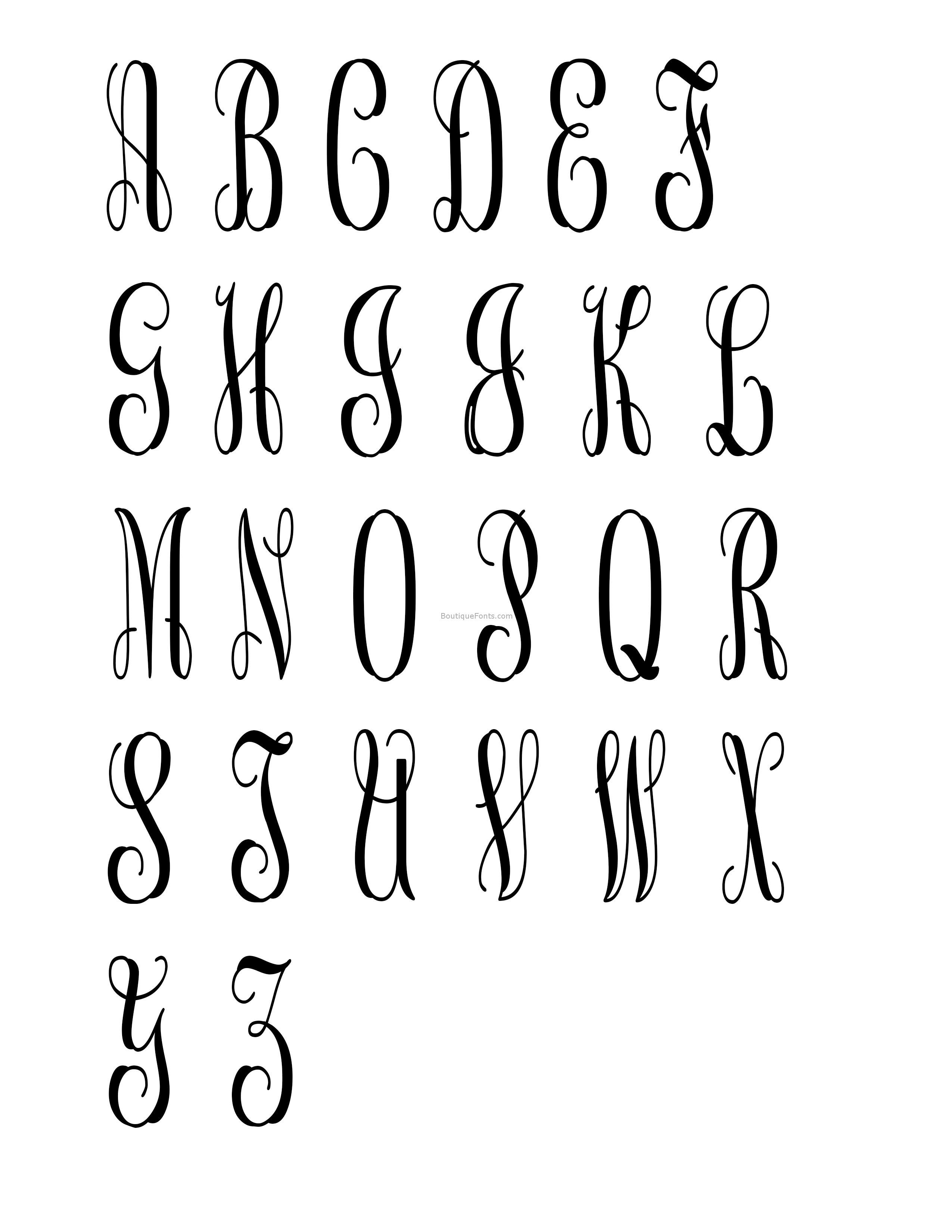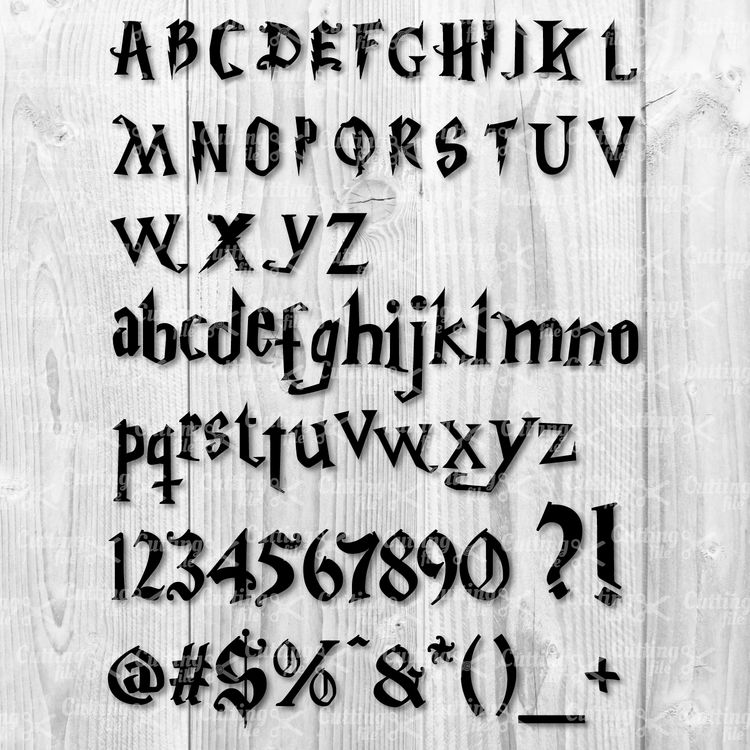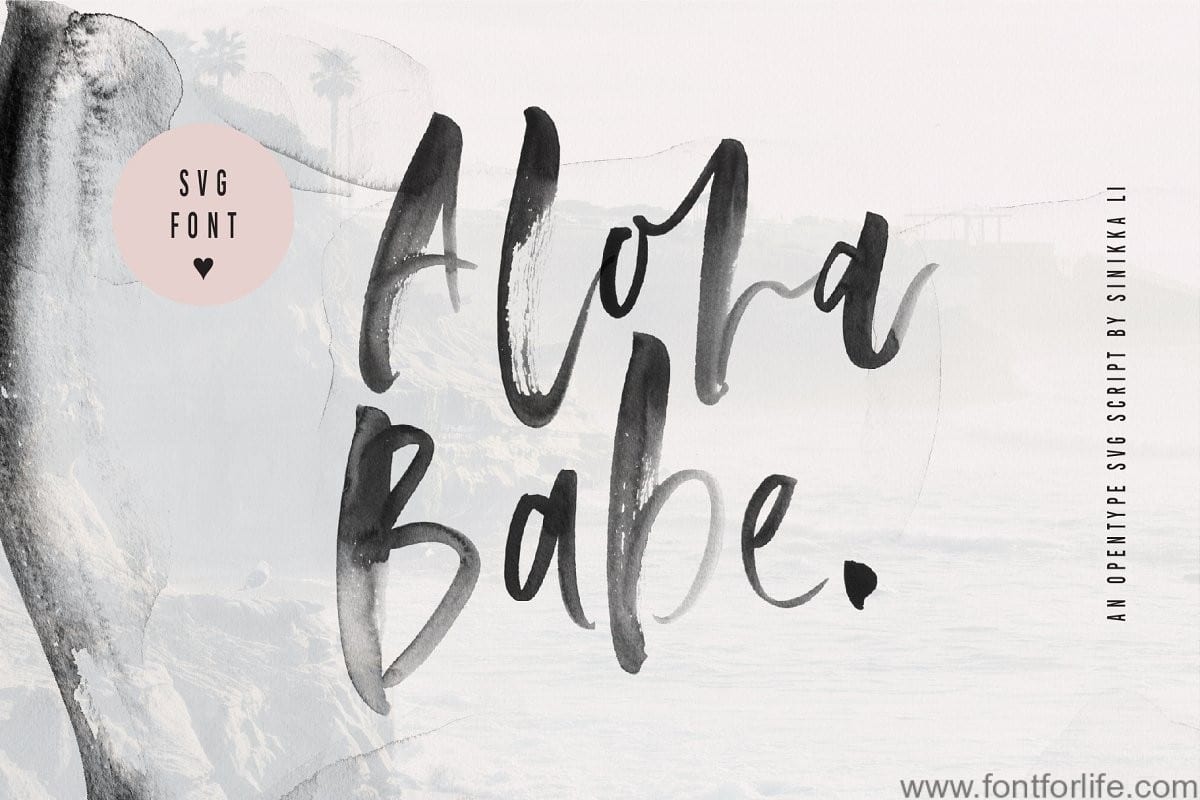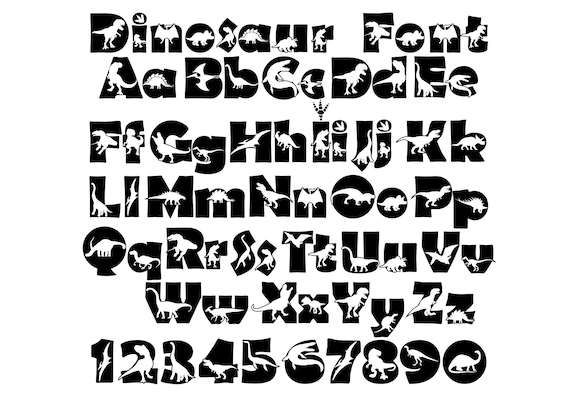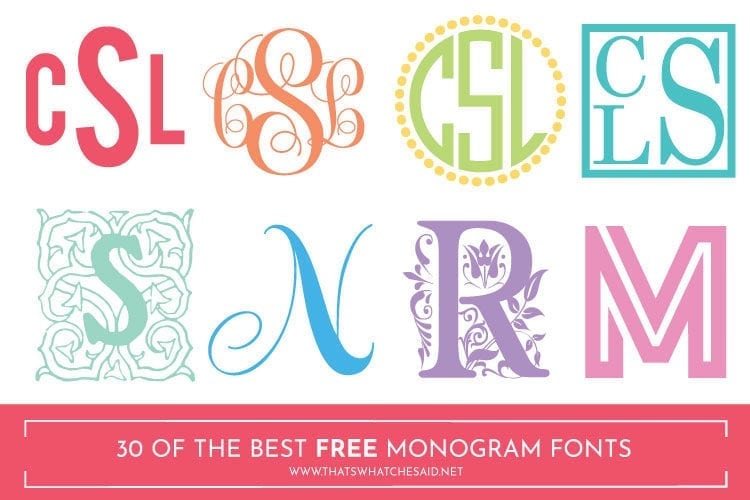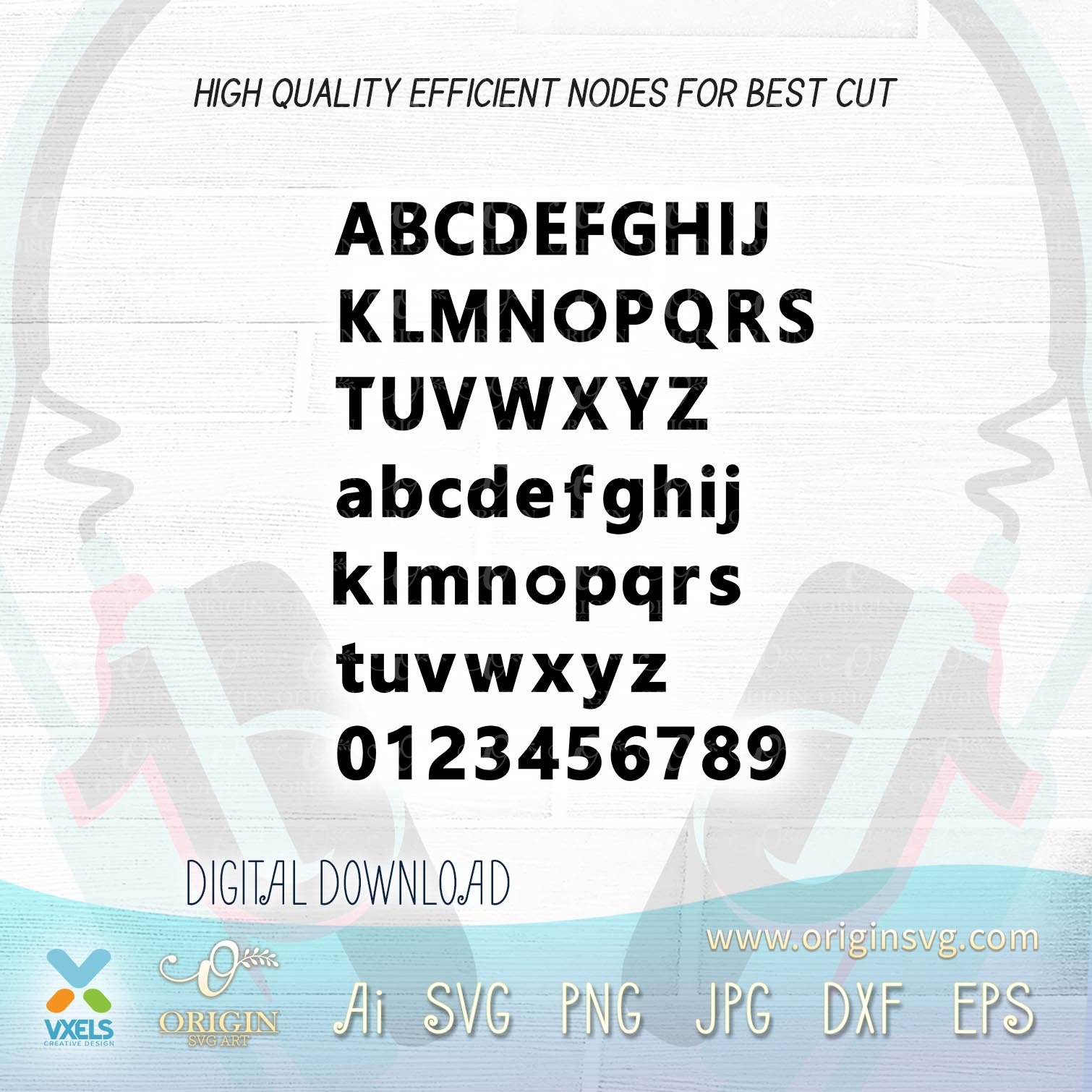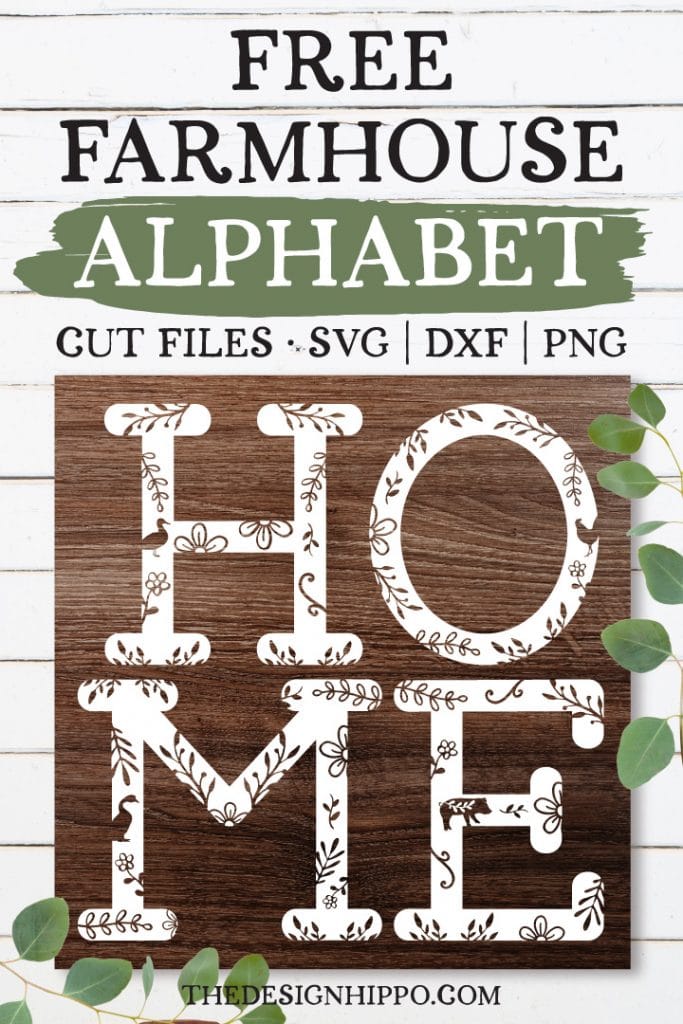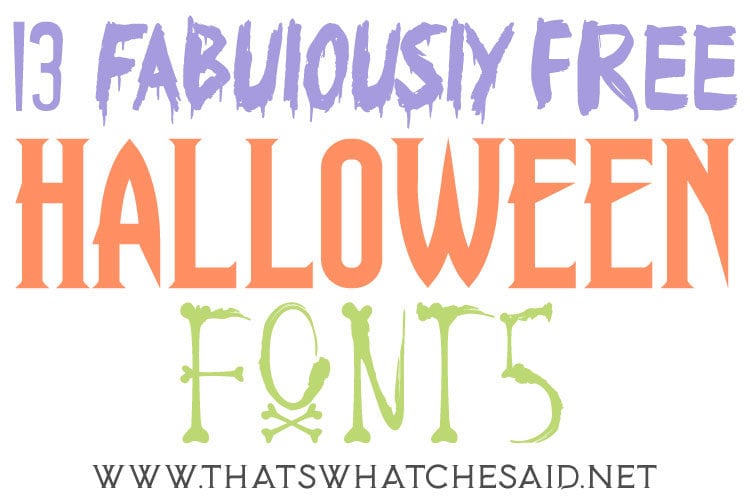
SVG fonts often make great use of color and this one is no exception. That is why finding free fonts for Cricut can be very difficult.
Best Free Fonts Script Elegant Free Svg Calligraphy Fonts
Svg alphabet fonts free. Even when you do find that perfect font you will need to know some basic steps to help your project idea become reality. If youre freaky for free fonts then Font Freak is the site for you. Wedding fonts Cursive font svg Cursive monogram svg Cursive fonts downloads Cursive font digital Word fonts Beautiful fonts calligraphy font OldSaltArt 5 out of 5.
25 Best Free SVG Fonts Bafora - Brush SVG Font. 340 x 270px 3761KB. OpenType SVG fonts use SVGs for the characters unlike traditional fonts that use normal outlines.
It is an all cap font use it with Caps turned on for one version and. Make a statement with these free monogram fonts for projects logos blogs graphic design and more. In fact finding paid fonts for Cricut can be difficult in itself.
Grab the best free fonts for crafts logos blogs professional graphic design and other projects. SVG allows each character to have color or fancy patterns that wouldnt be possible otherwise. 1 PNG high resolution 300dpi.
Free Download Baseball SVG Baseball font alphabet numbers svg png dxf pdf for Free SVG Cut Files. Theyve got a library of over 9000 free fonts as well as 125000 fonts for commercial use although youll have to pay for the latter. Beta SVG JPG PNG Scrapbook Die Cut Heat Transfer Vinyl Cut Cricut svg Silhouette svg Greek svg Instant Download.
340 x 270px 5484KB. This can make the file smaller if the text is short but then it wont be able to change the text after generation of the SVG file and the SVG file cant be indexed by search engine. In the Arabic Latin and Cyrillic alphabets many or all letters in a word are connected sometimes making a word one single complex stroke.
Grab this Awesome Free Font Neon Light perfect for tons of projects. Download Free Monogram Font Svg Monogram Letters Svg Crafter File - Create your DIY projects using your Cricut Explore Silhouette and more. FontSpace uses the DirectWrite renderer to provide high quality rendering for SVG.